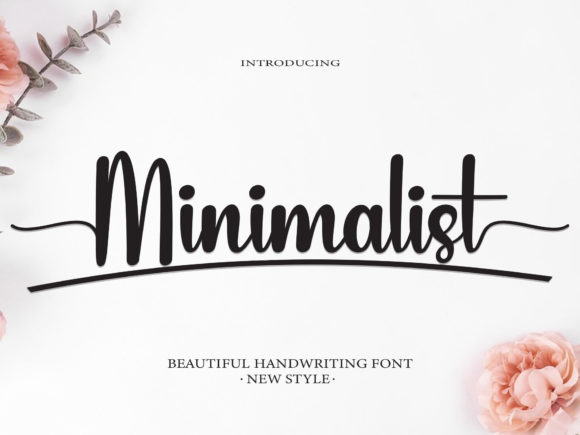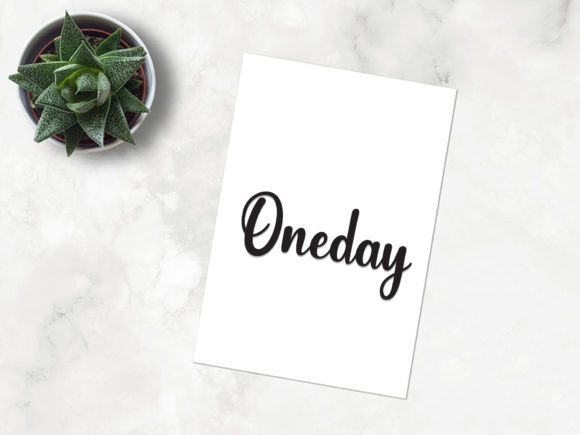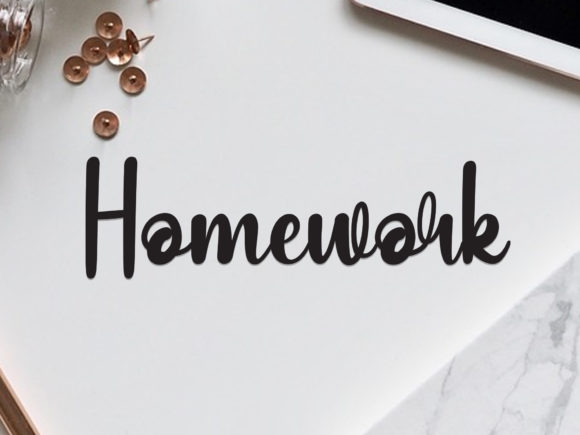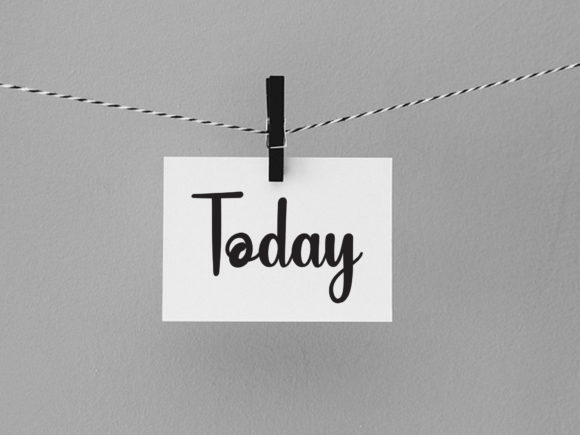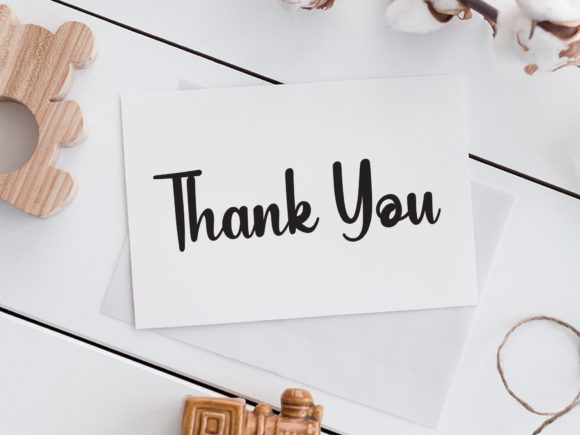
Minimalist Font
About Minimalist Font
Minimalist is a simple handwritten font that has a modern yet whimsical style. It will undoubtedly immerse your designs into a magical world.